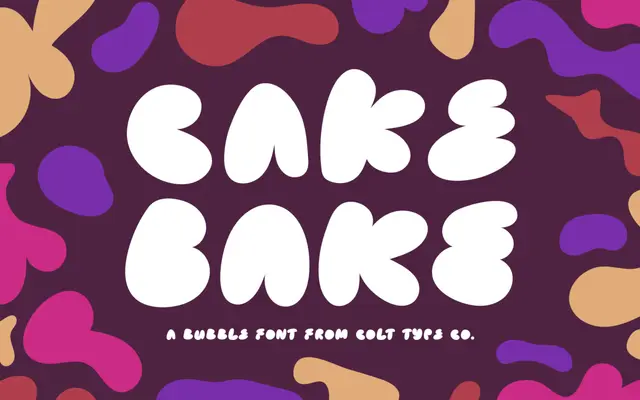
Cake Bake specimen from Colt Type
A hand-drawn, all-caps bubble typeface with a 1970s retro character, sold in regular and outline cuts.
Drawn by hand for a natural, organic feel, this all-caps bubble face carries a distinctly 1970s flavour suited to logos, headings and short display copy. Alternate uppercase glyphs sit on the lowercase keys to introduce variation and avoid mechanical repetition. The pack includes both a filled and an outline version in OTF and web font formats.
An all-caps hand-drawn bubble typeface with retro 1970s character; firmly in the display/novelty category with no text-setting application.